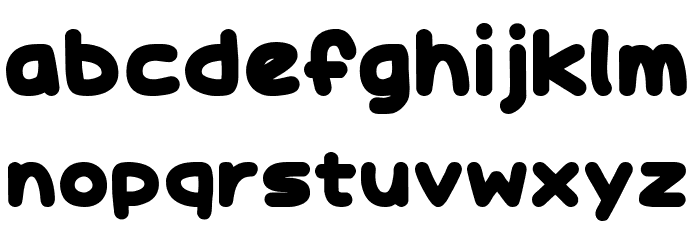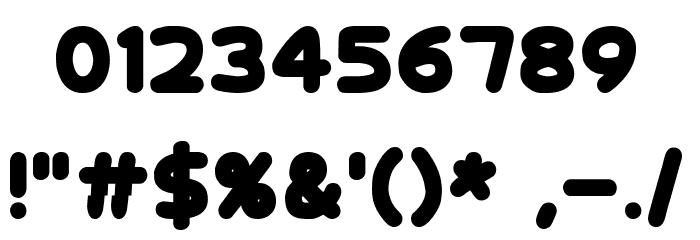
Tintenfische Font
This playful and rounded font features bold, smooth curves and a friendly appearance. Each character is crafted with a consistent thickness, giving it a cohesive and harmonious look. The letters are slightly condensed, which adds to its unique charm. The font's bubbly nature makes it stand out, with each letter maintaining a uniform height and width. The numbers and special characters follow the same design principles, ensuring a seamless integration with the alphabet. This font's style is approachable and fun, making it ideal for projects that require a touch of whimsy and creativity.
A playful, rounded font with bold, smooth curves and a friendly appearance.
- Font: Tintenfische
- Proposed Projects: Ideal for children's books, playful branding, casual invitations, and creative posters.
- Overall Style: Playful